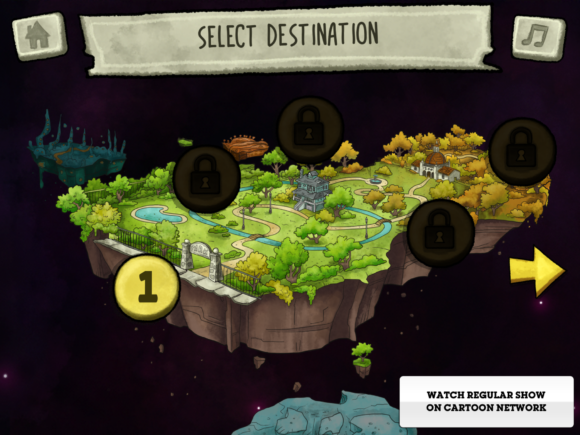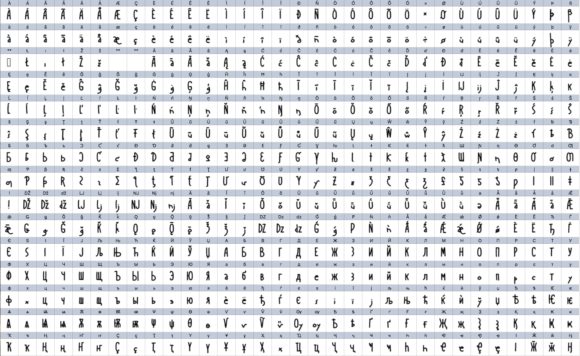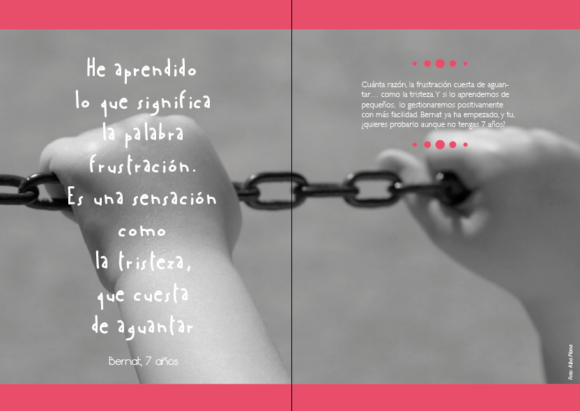
A Mano Boldensada Font: A Charming Typeface for Creative Projects
Are you a designer or crafter looking for a unique and playful font to add a personal touch to your projects? Look no further than A Mano Boldensada, a simple and practical typeface that simulates a child’s handwriting. This charming font is ideal for a variety of creative applications, from story titles and indexes to short texts and paragraphs.
What is A Mano Boldensada?
A Mano Boldensada is a carefully crafted font that mimics the look and feel of a child’s handwriting. Its simplicity and practicality make it an excellent choice for a wide range of design projects. The font features all Cyrillic and Eastern European accents, symbols, and glyphs, ensuring that it can be used for multilingual projects with ease.
Key Features of A Mano Boldensada
- Simulates a child’s handwriting: A Mano Boldensada has a playful and informal feel that is perfect for creating a sense of nostalgia and whimsy in your designs.
- Ideal for short texts and paragraphs: This font is optimized for use in short texts, making it perfect for story titles, indexes, and short paragraphs.
- Multilingual support: A Mano Boldensada features all Cyrillic and Eastern European accents, symbols, and glyphs, making it a great choice for projects that require multilingual support.
- Simple and practical: Despite its playful feel, A Mano Boldensada is a simple and practical font that is easy to read and use in a variety of design contexts.
Using A Mano Boldensada in Your Design Projects
A Mano Boldensada is a versatile font that can be used in a wide range of design projects, including:
- Storybooks and children’s literature: The font’s playful feel makes it perfect for use in storybooks and other children’s literature.
- Invitations and greeting cards: A Mano Boldensada’s informal feel makes it a great choice for use in invitations and greeting cards.
- Signs and posters: The font’s bold and playful feel makes it perfect for use in signs and posters.
- Digital and print media: A Mano Boldensada can be used in both digital and print media, making it a great choice for designers who work across multiple platforms.
Tips for Using A Mano Boldensada Effectively
To get the most out of A Mano Boldensada, follow these tips:
- Use it sparingly: A Mano Boldensada is a bold and playful font, so use it sparingly to avoid overwhelming your design.
- Pair it with a neutral font: Pair A Mano Boldensada with a neutral font to create visual interest and add contrast to your design.
- Experiment with colors and textures: A Mano Boldensada looks great in a variety of colors and textures, so don’t be afraid to experiment and find the look that works best for your design.
| Author | Pablo Sobredosi |
A Mano Boldensada is a charming and versatile font that is perfect for designers and crafters looking to add a personal touch to their projects. Its playful feel, multilingual support, and simplicity make it an excellent choice for a wide range of design applications. Whether you’re working on a storybook, invitation, or sign, A Mano Boldensada is a great choice for adding a touch of whimsy and personality to your design.